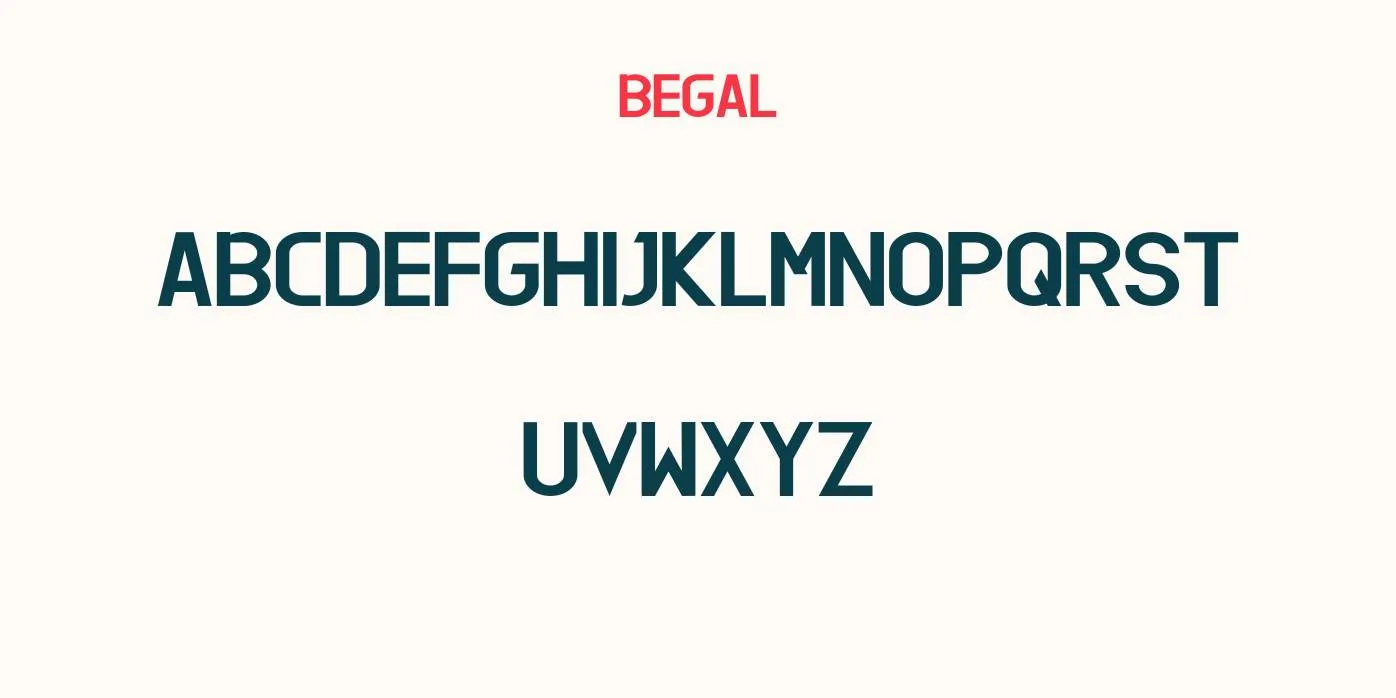
Begal Font
Begal Font was designed by Sambogo Creative. It has many characters, symbols, punctuations, small letters, capital letters, and special characters. This outstanding typeface belongs to the Sans-serif texture family. The weight of the font is medium(standard) and the width of the font is also medium average.
Usage You can make so many projects using this font in a very neat look. It contains characters, symbols, capital letters, small letters, punctuations, special characters, and numbers Its neat and clean look is used for making banners and posters to give a clear look with high readability. You can also make marriage invitations and other events invitations using this font. Different hotel menu cards are also designed using this font.
It is a very popular font It was downloaded millions of times by users for making their projects. It is a Sans-serif font and it can also be used for making magazine covers and other advertisement purposes. This font can also be used for various types of applications such as adobe photoshops, canva, illustrator, and CSS purposes. You can make nice logos using this font.
It was inspired by an American designer and can be used for making many projects.